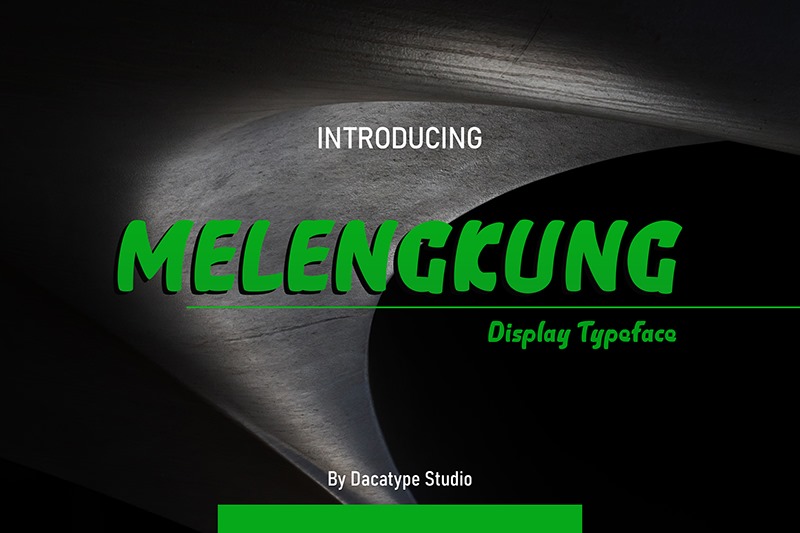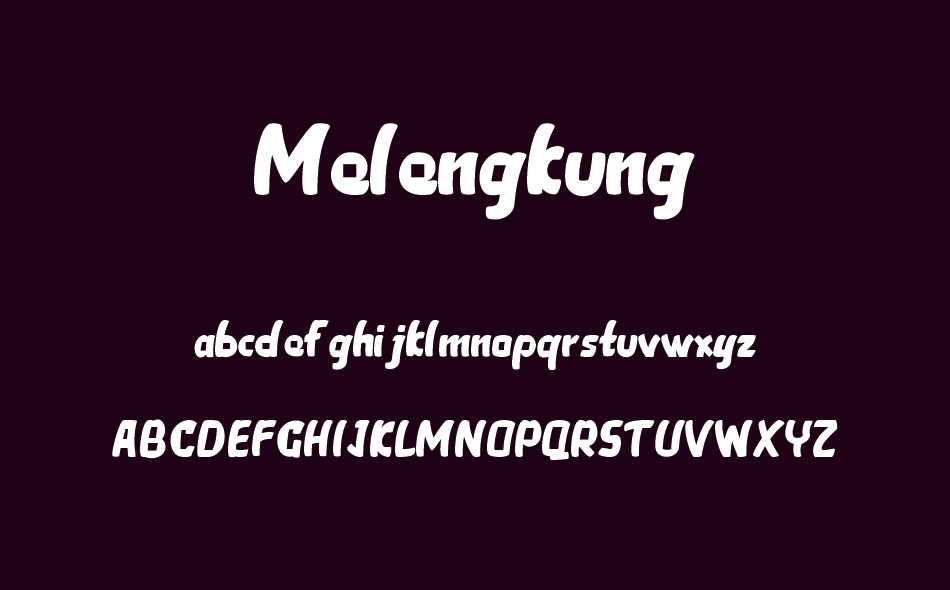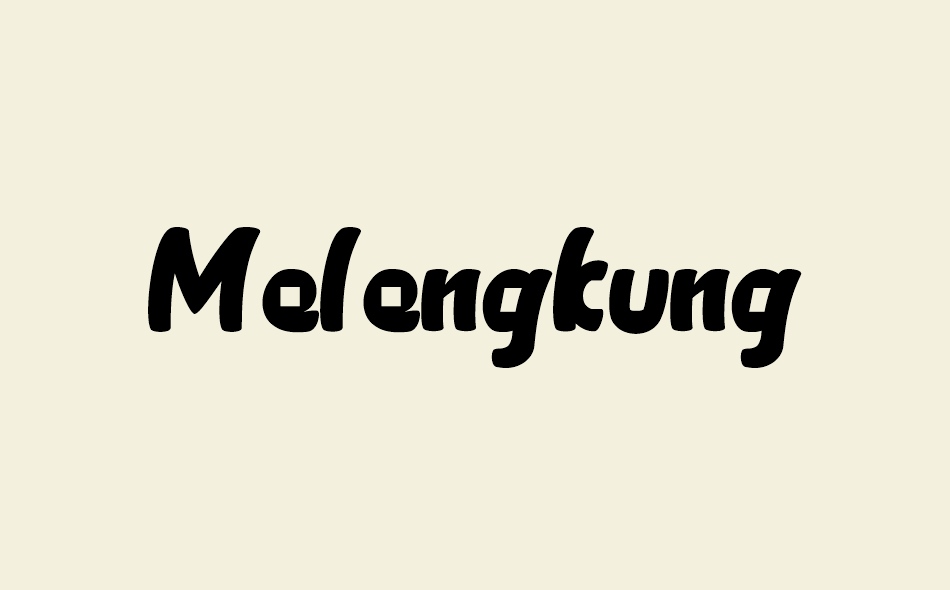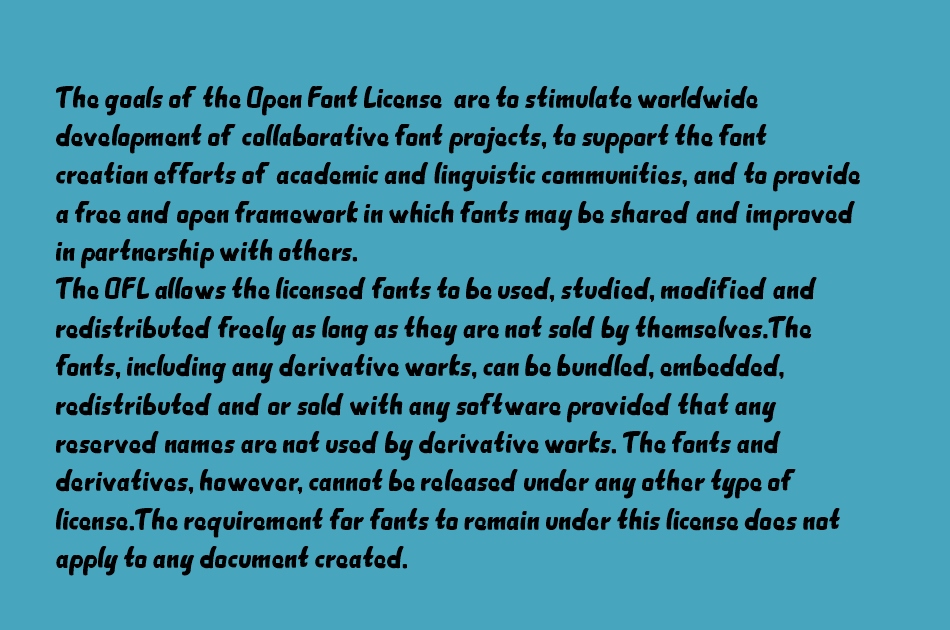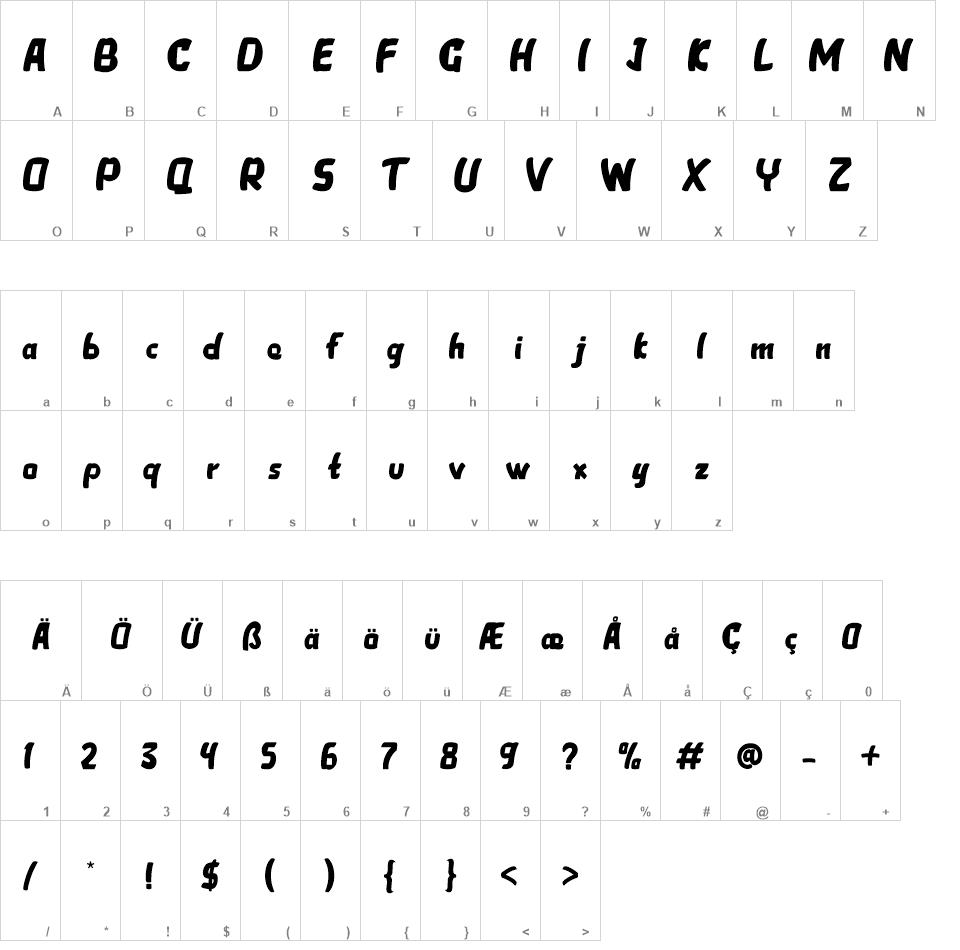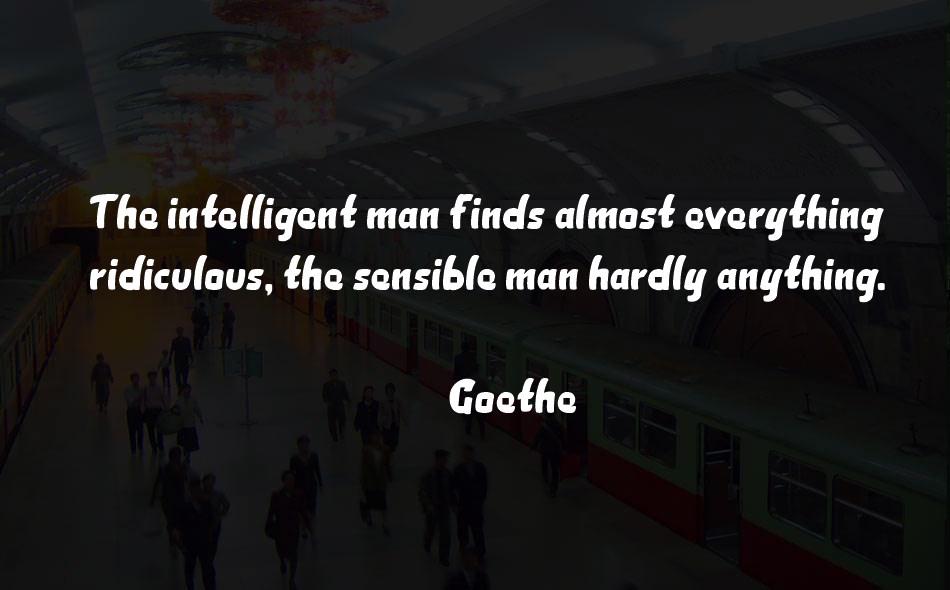
Melengkung font
Little explanation abaout this font.
Melengkung is a unique font from dacatype studio, a font with a curved appearance, can be an option for your heading writing
Its totally unique, and ready to turn your texts into memorable messages. suitable for those of you who want a different look.